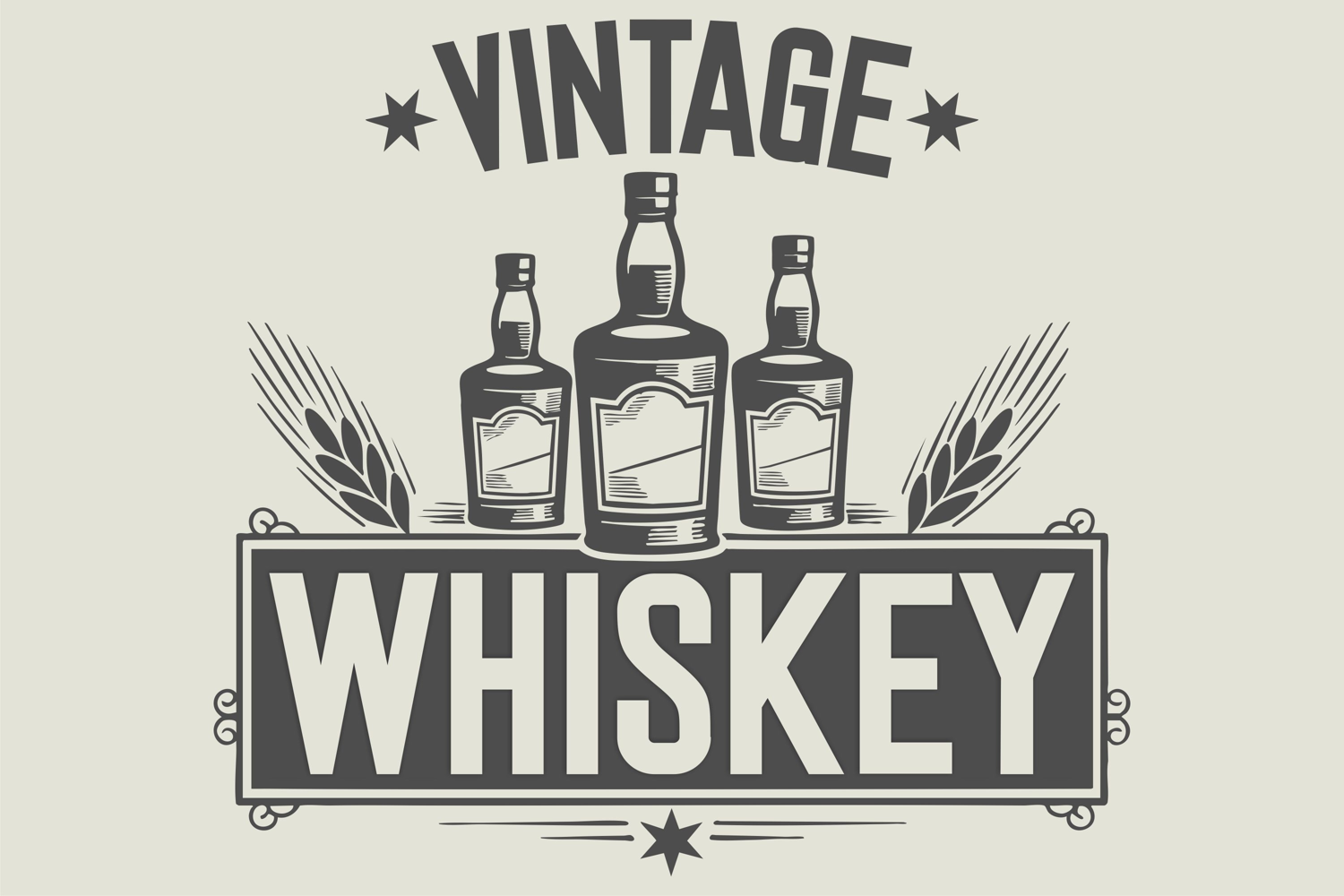
Whiskey Font | Vintage Font | Bold Sans Serif Display Font
Experience the classic appeal and time-honored elegance of the Vintage Whiskey Font. This audacious sans serif typeface exudes rustic authenticity, capturing the spirit of historical whiskey labels, quintessential saloon signs and heritage distillery typography. Influenced by the intrepid charm of yesteryears, Vintage Whiskey delivers strong and clear messaging with robust, tall, condensed characters. Every stroke resonates with refined craftsmanship, perfect for a wide array of applications such as logos, posters, clothing lines, packaging, gustatory signage and retro-themed branding endeavors. Each character echoes the richness of tradition, ensuring your designs retain a timeless boldness that never loses its allure. Packaged with uppercase letters, numbers, punctuation, and multilingual support, the Vintage Whiskey font is as versatile as it is enthralling. Be it a label for your artisanal brand, a western-inspired project or a retro T-shirt design, Vintage Whiskey propels your vision with unmatched aesthetics and striking visual impact.
AB Whiskey